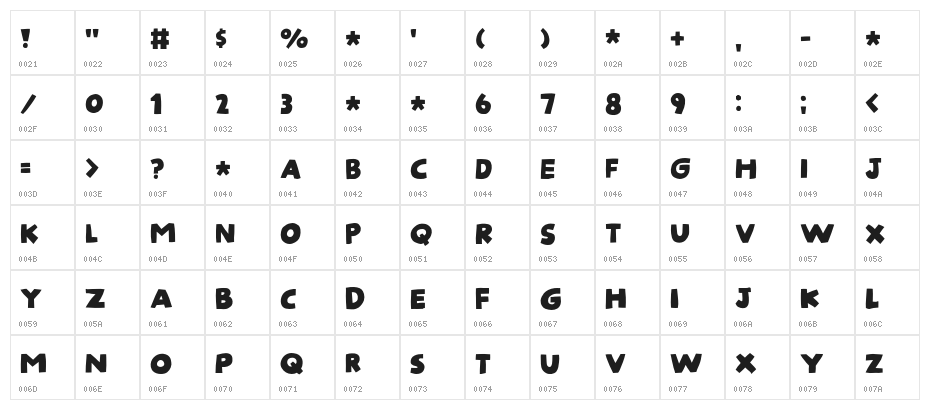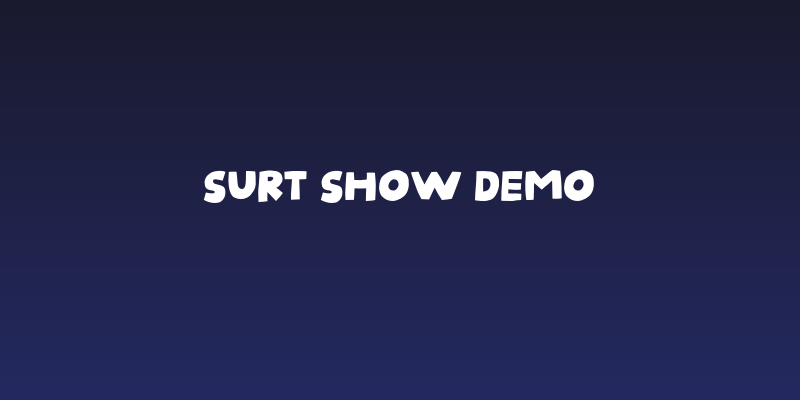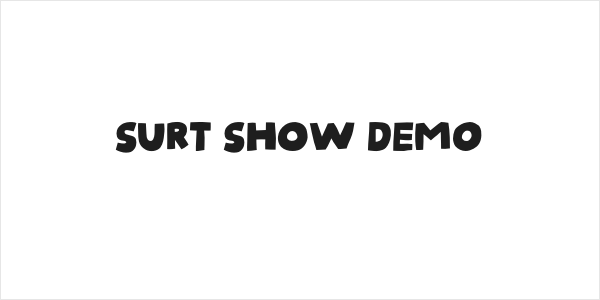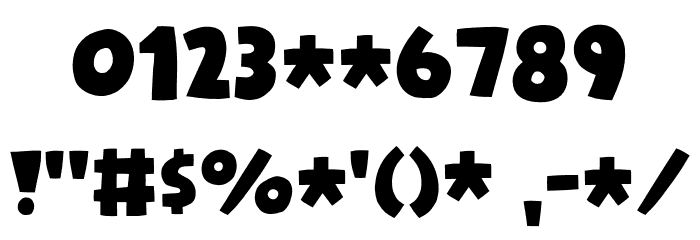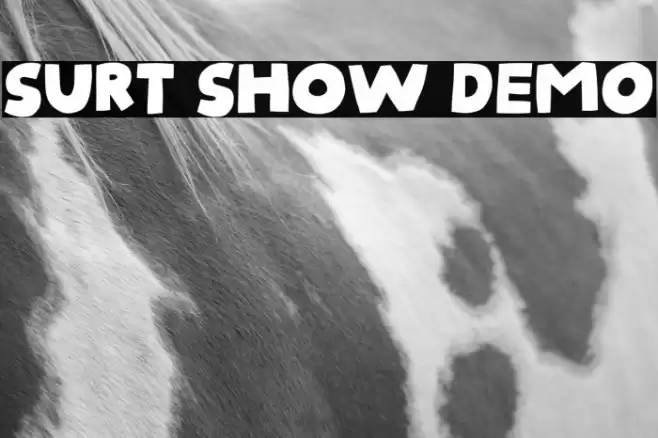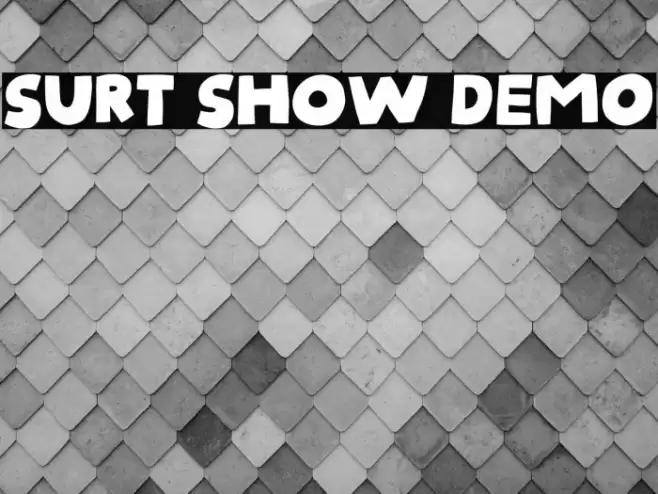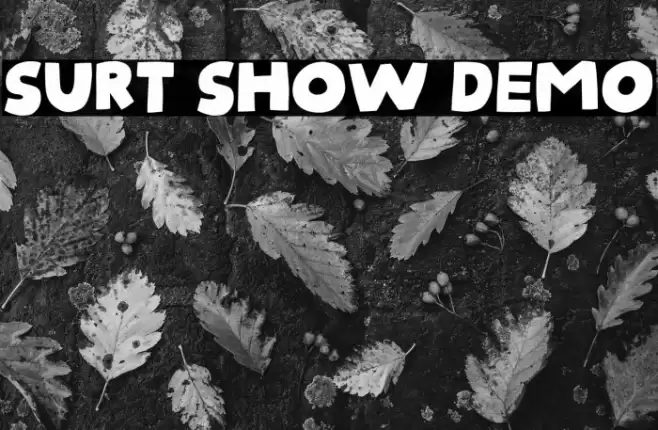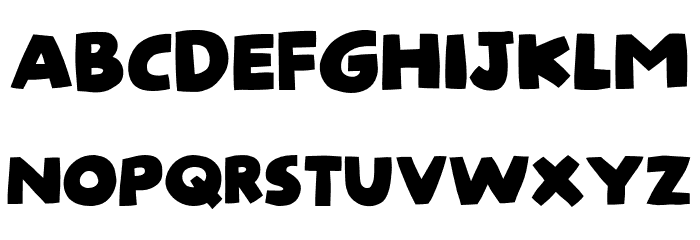
Surt Show DEMO Font
Surt Show DEMO Description
This font features a bold and playful design with a strong presence. The characters are thick and slightly irregular, giving a hand-drawn, whimsical feel. The uppercase letters are robust and commanding, while the lowercase letters maintain the same playful essence. Numbers and special characters are consistent with the overall style, ensuring a cohesive look across all text. The font's unique character shapes and boldness make it stand out, perfect for grabbing attention.
| Proposed Projects | Ideal for children's books, playful branding, posters, and any project needing a fun and bold typeface. |